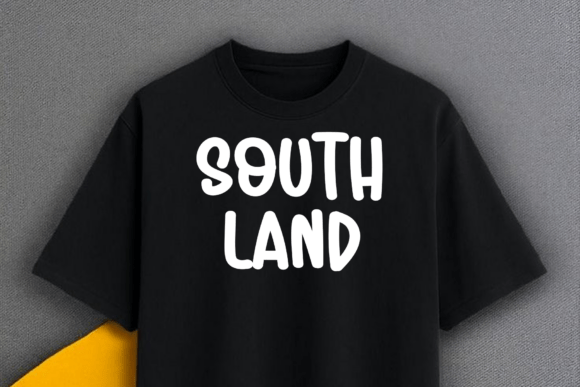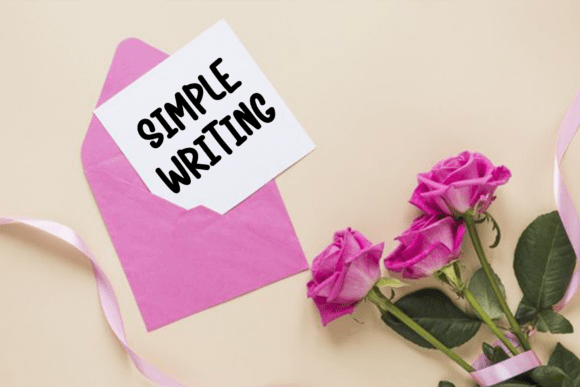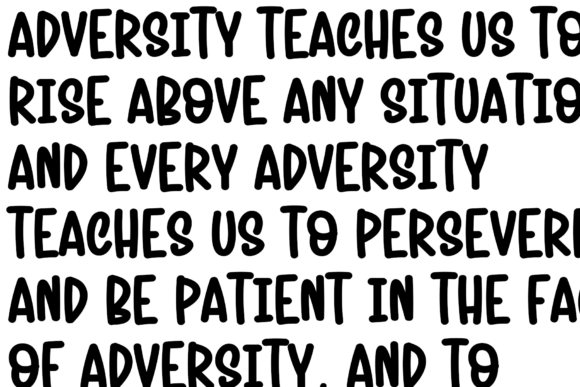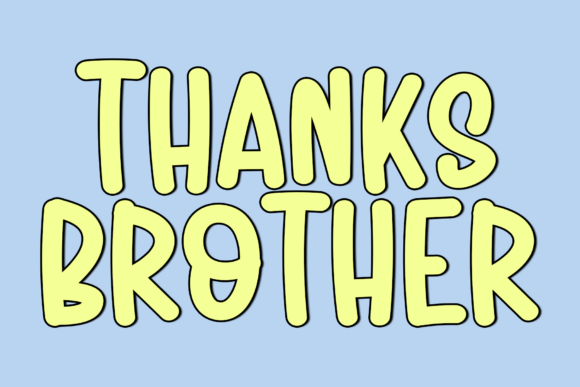
Introduction to Simple Zone Font
Have you ever been working on a creative project and suddenly, you’re stuck on finding the perfect font to bring your idea to life? You’ve scrolled through countless options, but none of them seem to capture the essence of your vision. That’s where the Simple Zone Font comes in – a game-changing design resource that will elevate your DIY projects and social media graphics to the next level.
As a designer, you know how crucial it is to have a high-quality font that adds a personal touch to your work. With its friendly feel and elegant curves, the Simple Zone Font is the perfect addition to any creative project. Whether you’re looking to create a stunning Instagram post or a beautiful hand-lettered quote, this font will make your design stand out from the crowd.
Key Features of Simple Zone Font
- High-quality design resource suitable for various creative projects
- Designed to be easy to read and use, making it perfect for headings, titles, and body text
- Includes a wide range of characters, including uppercase and lowercase letters, numbers, and punctuation marks
Honest Review: Simple Zone Font
As a designer, I’m always on the lookout for high quality design resources to elevate my creative projects. The Simple Zone Font caught my attention with its sleek and modern design.
What works well is the font’s versatility – it can be used for both digital and print projects. The transparent background is a nice touch, making it easy to layer with other design elements.
Here are some key features:
- High quality design
- Compatible with both digital and print projects
One limitation is that the font may not be suitable for projects that require a lot of text, as it can become difficult to read at smaller font sizes.
Overall, I’m impressed with the Simple Zone Font. It’s a solid addition to any designer’s toolkit, and I’d definitely recommend it for creative projects that require a clean and modern look.
The Simple Zone Font is suitable for a variety of projects, including business cards, brochures, and website designs. It’s also a great choice for presentations and reports where you want to add a touch of professionalism.